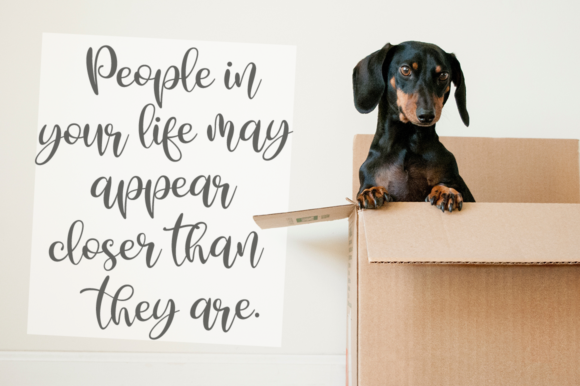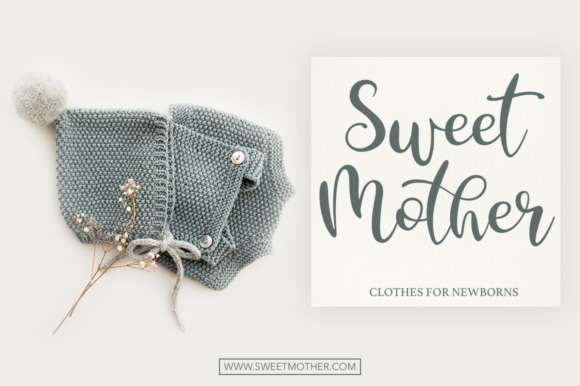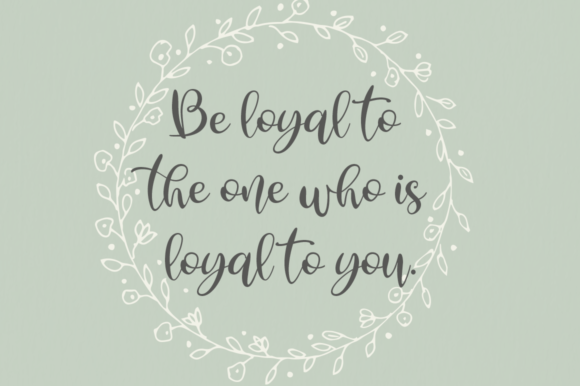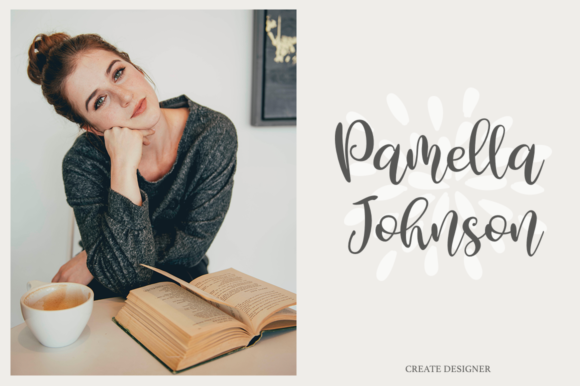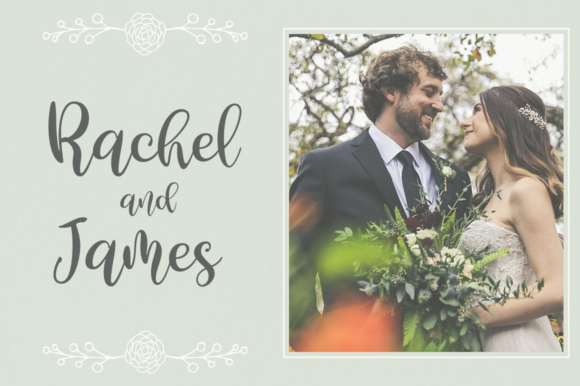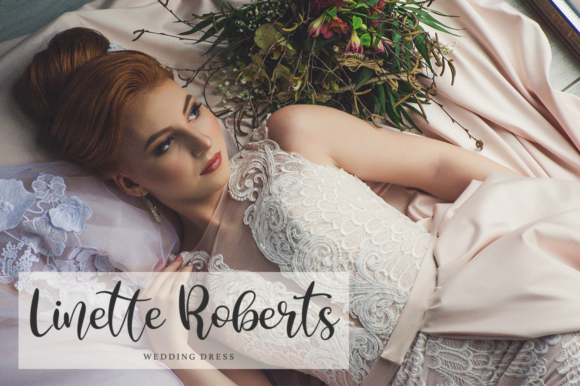
Gulliver Font: The Ultimate Handmade Script Font for Branding and Design
In the world of typography, fonts play a crucial role in making or breaking a design. A well-crafted font can elevate a project from ordinary to extraordinary. Introducing Gulliver Font, a new, fresh, handmade script font that’s ideal for branding and decorating any project. In this article, we’ll dive into the features, benefits, and uses of Gulliver Font, and explore why it’s a must-have for designers and crafters.
What is Gulliver Font?
Gulliver Font is a beautifully crafted, handmade script font that’s perfect for adding a personal touch to any design project. Its unique, flowing script style makes it ideal for branding, packaging, advertising, and other creative endeavors. With its fresh and modern look, Gulliver Font is sure to make your designs stand out from the crowd.
Key Features of Gulliver Font
- Handmade with love: Gulliver Font is carefully crafted by hand, giving it a unique and personal touch.
- Script style: Its beautiful script style makes it perfect for adding a touch of elegance and sophistication to any design.
- Fresh and modern: Gulliver Font has a fresh and modern look that’s perfect for contemporary designs.
- Versatile: It can be used for a wide range of design projects, from branding and packaging to advertising and more.
Benefits of Using Gulliver Font
So, why should you choose Gulliver Font for your design projects? Here are just a few benefits of using this amazing font:
- Adds a personal touch: Gulliver Font’s handmade, script style adds a personal touch to any design, making it more relatable and engaging.
- Enhances brand identity: With its unique and modern look, Gulliver Font can help enhance your brand’s identity and make it more memorable.
- Increases creativity: The versatility of Gulliver Font allows you to experiment with different design ideas and push the boundaries of your creativity.
Uses of Gulliver Font
Gulliver Font is a versatile font that can be used for a wide range of design projects, including:
- Branding and logo design: Use Gulliver Font to create a unique and memorable logo that reflects your brand’s personality.
- Packaging design: Add a touch of elegance and sophistication to your packaging designs with Gulliver Font.
- Advertising and marketing: Use Gulliver Font to create eye-catching ads and marketing materials that grab attention.
- Stationery and invitations: Add a personal touch to your stationery and invitations with Gulliver Font’s beautiful script style.
Tips for Using Gulliver Font
Here are a few tips for using Gulliver Font effectively in your design projects:
- Experiment with different sizes and colors: Play around with different sizes and colors to find the perfect combination for your design.
- Pair it with other fonts: Combine Gulliver Font with other fonts to create a unique and visually appealing design.
- Use it sparingly: Use Gulliver Font sparingly to add emphasis and create visual interest in your design.
In conclusion, Gulliver Font is a beautiful, handmade script font that’s perfect for adding a personal touch to any design project. With its fresh and modern look, versatility, and ease of use, Gulliver Font is a must-have for designers and crafters. Whether you’re looking to enhance your brand identity, increase creativity, or simply add a touch of elegance to your designs, Gulliver Font is the perfect choice.